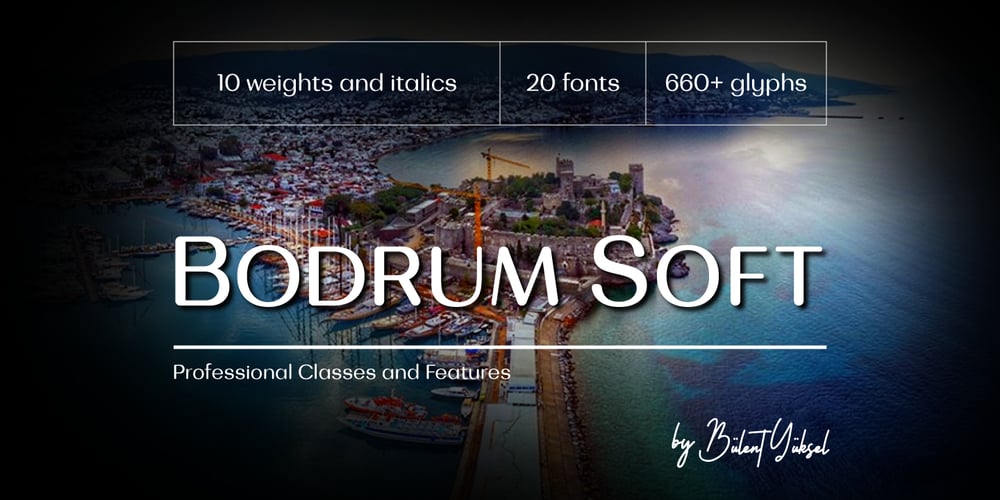
Bodrum Soft Font Family was designed by Bülent Yüksel and published by Bülent Yüksel. Bodrum Soft contains 20 styles and family package options. You can download Bodrum Soft PDF Type Specimen here. “Bodrum Soft” is a rounded sans serif type family, designed by Bülent Yüksel in 20018/19. The font, influenced by serif styles that were popular in the 1920s and 30s, is based on optically corrected geometric forms for a better readability. “Bodrum Soft” is not purely geometric; it has vertical strokes that are thicker than the horizontals, an “o” that is not a perfect circle, and shortened ascenders. These nuances helps the legibility and gives “Bodrum Soft” an harmonious and sensible appearance for both texts and headlines. Bodrum Soft provides advanced typographical support for Latin-based languages. An extended character set, supporting Central, Western and Eastern European languages, rounds up the family. “Bodrum Soft 14 Regular” forms the central point. “Bodrum Soft” is available in 10 weights (Hair, Thin, Extra-Light, Light, Regular, Medium, Bold, Extra-Bold, Heavy and Black) and 10 matching italics. The family contains a set of 650+ characters. Case-Sensitive Forms, Classes and Features, Small Caps from Letter Cases, Fractions, Superior, Inferior, Denominator, Numerator, Old Style Figures can be accessed with one simple touch in all graphic programs. Bodrum Soft is the perfect font for web use. I hope you enjoy using it!